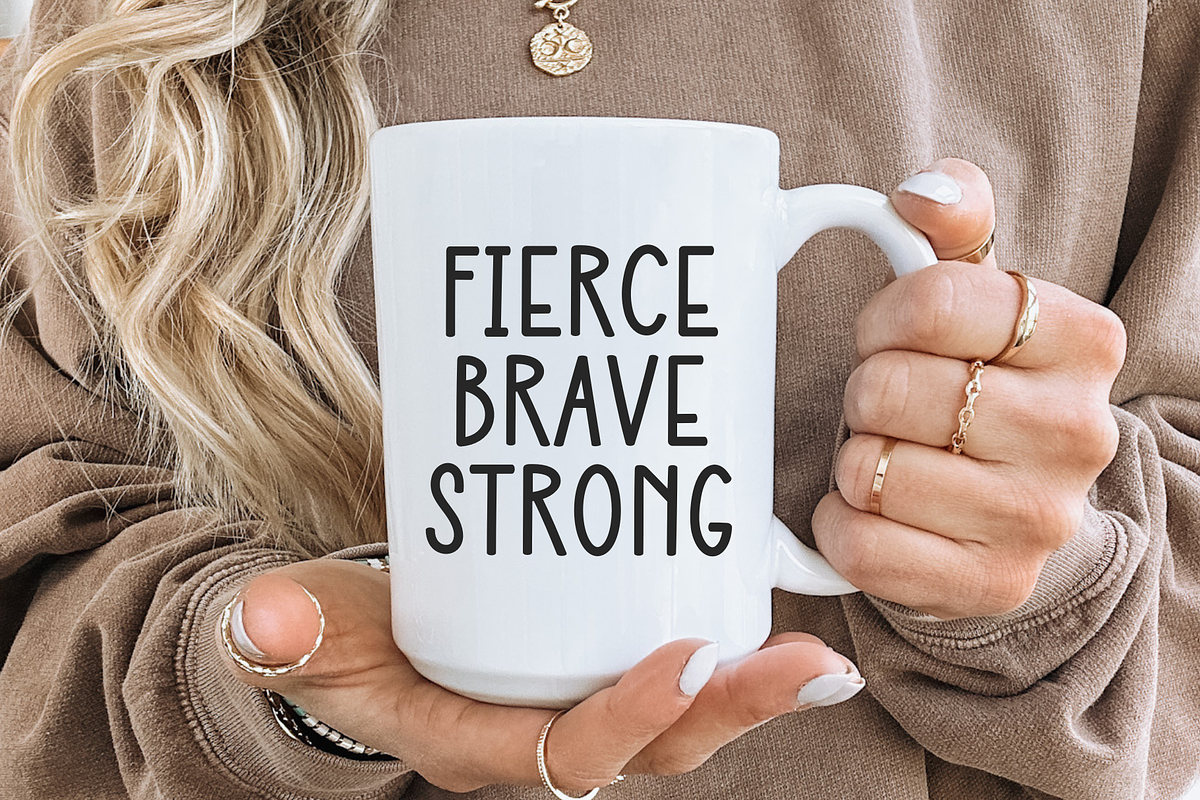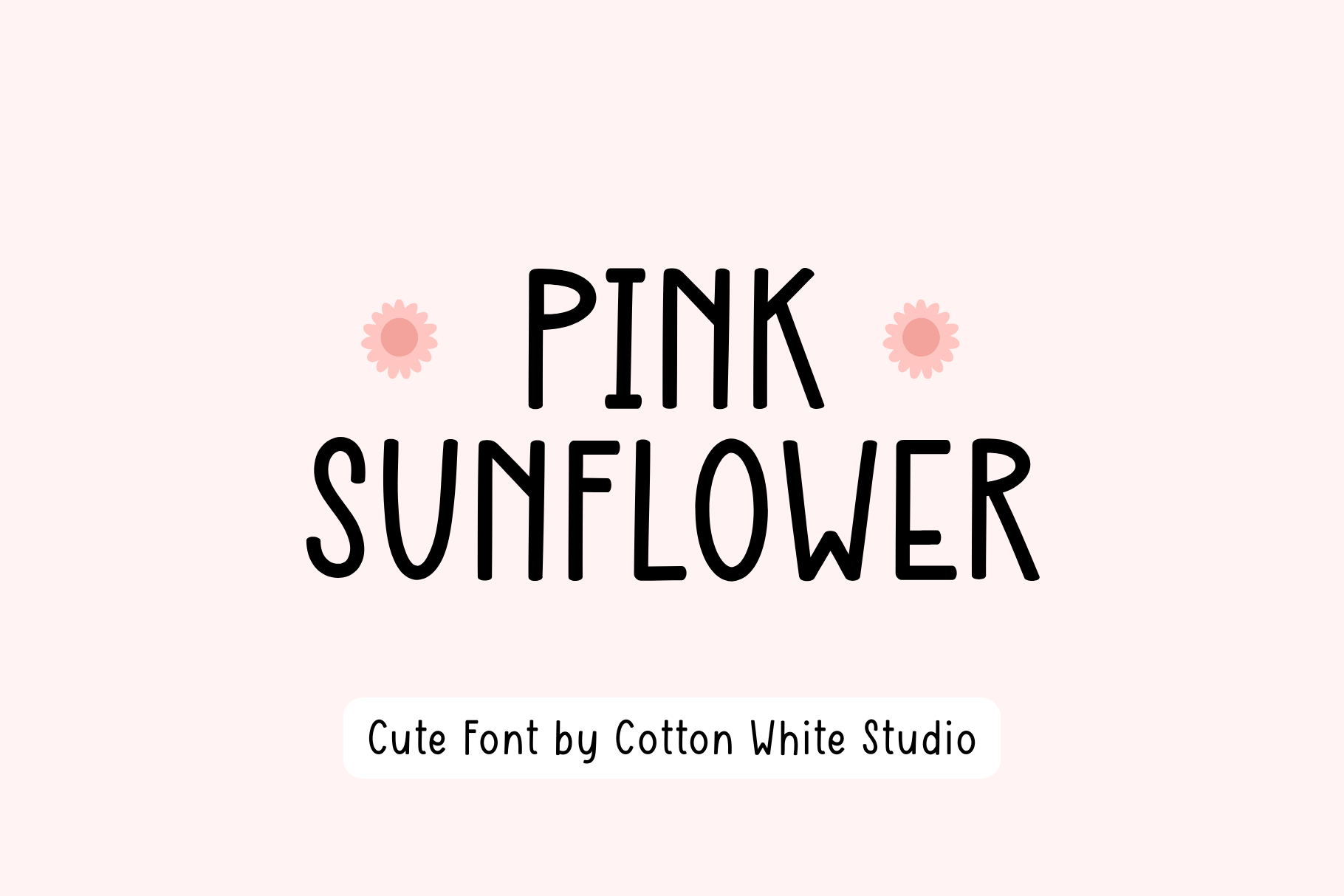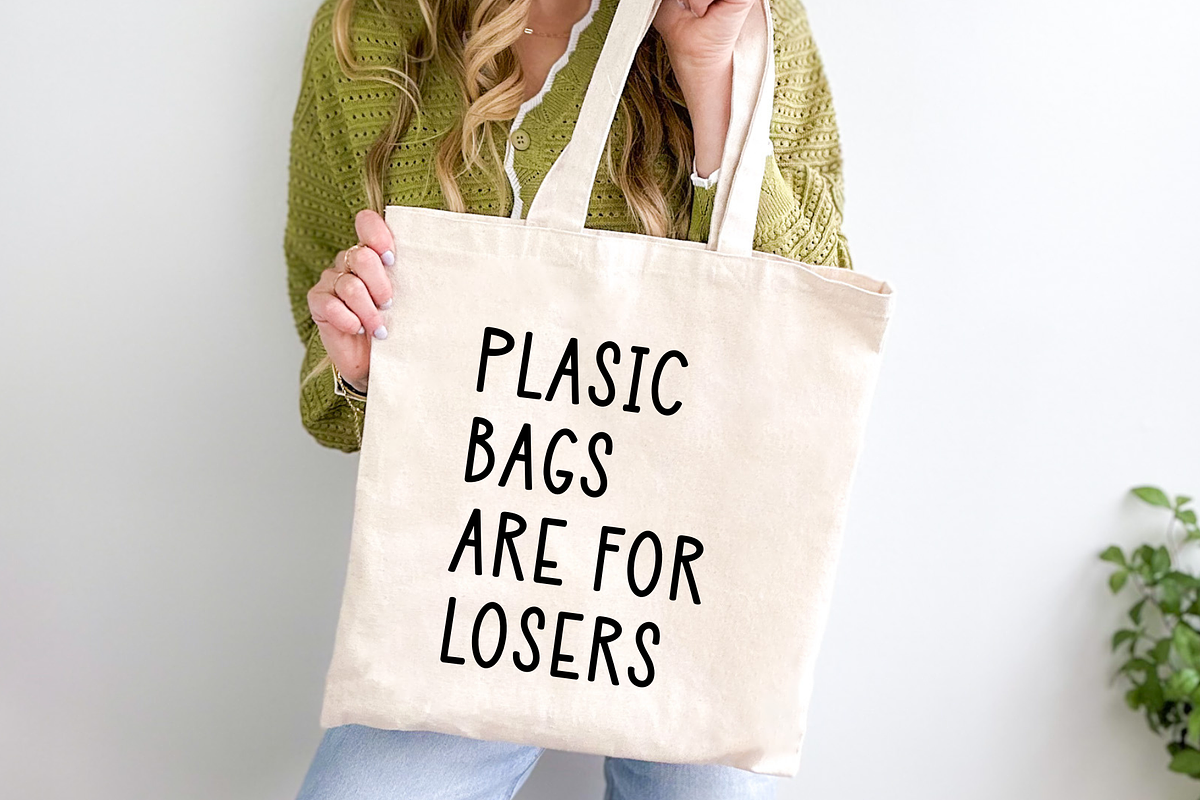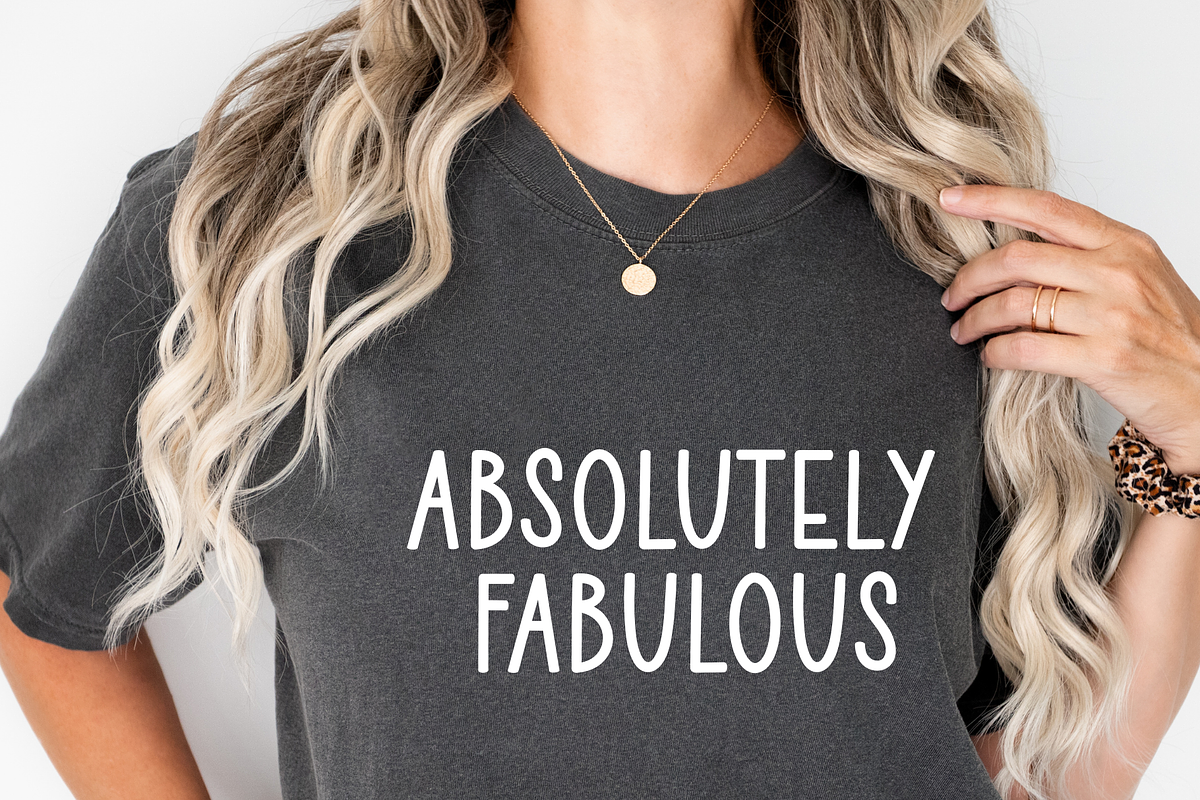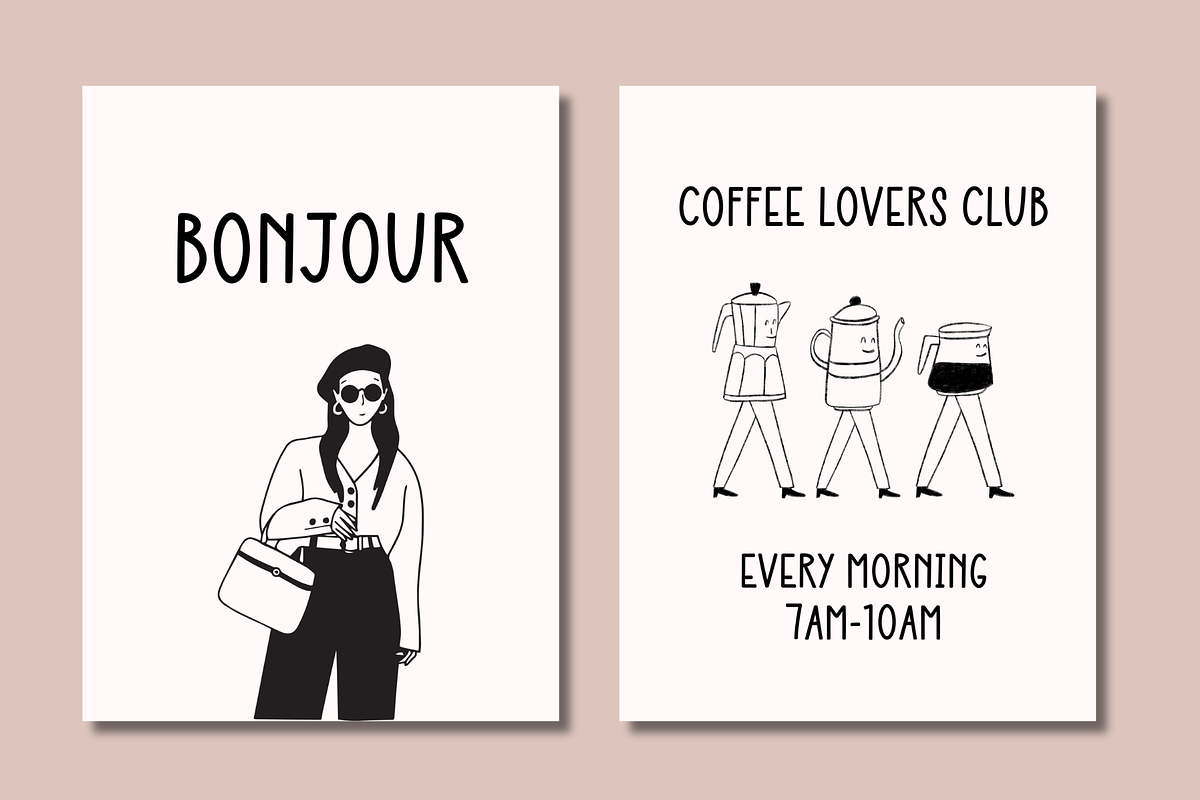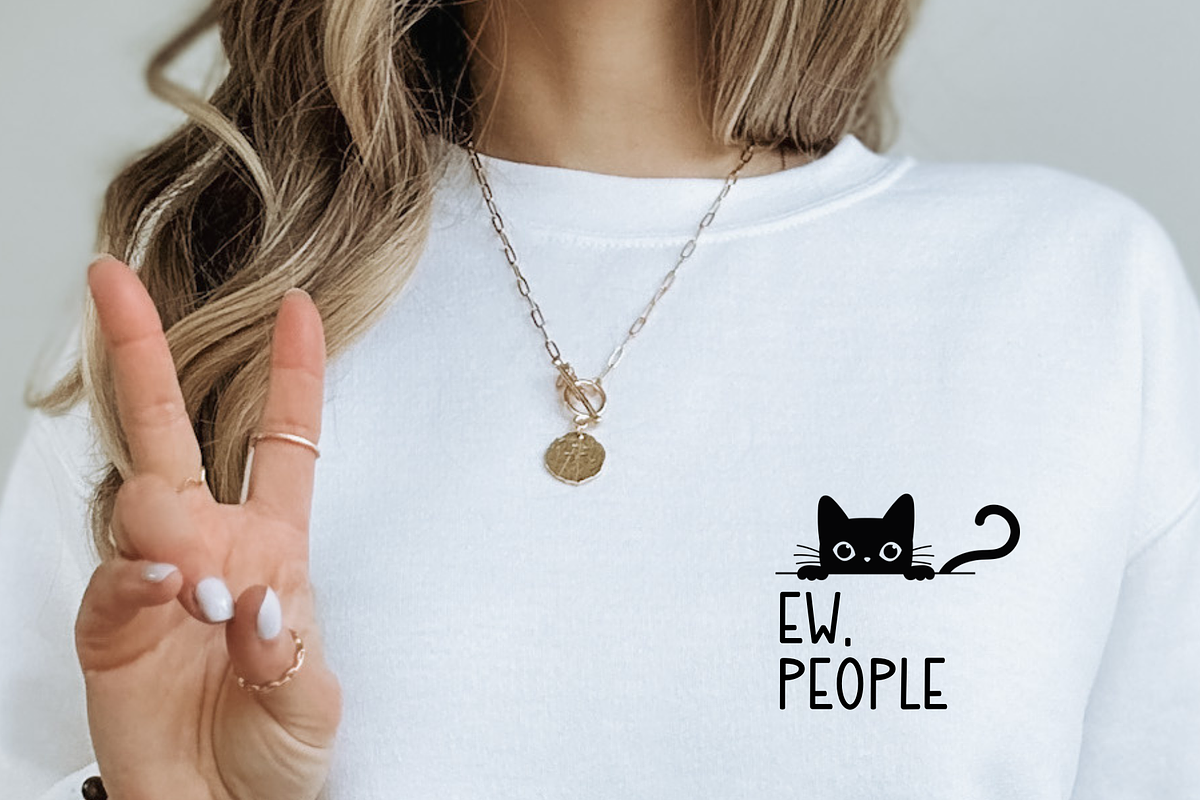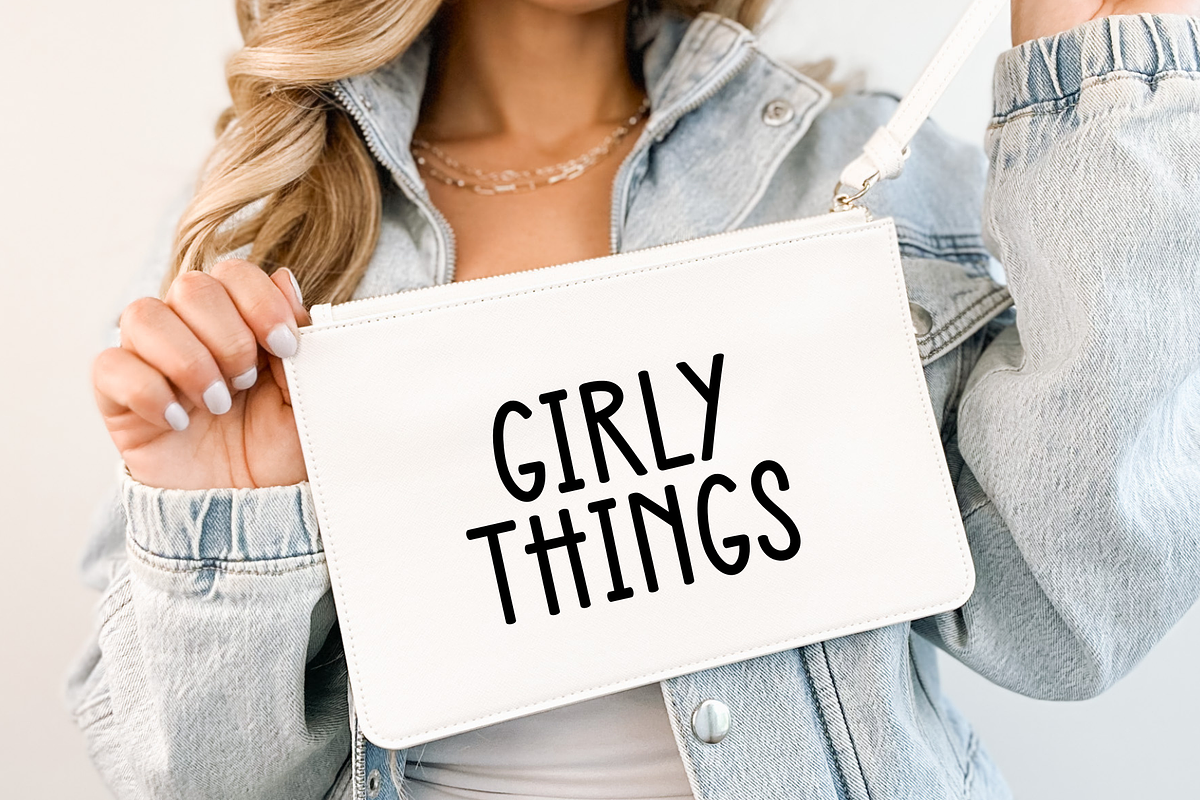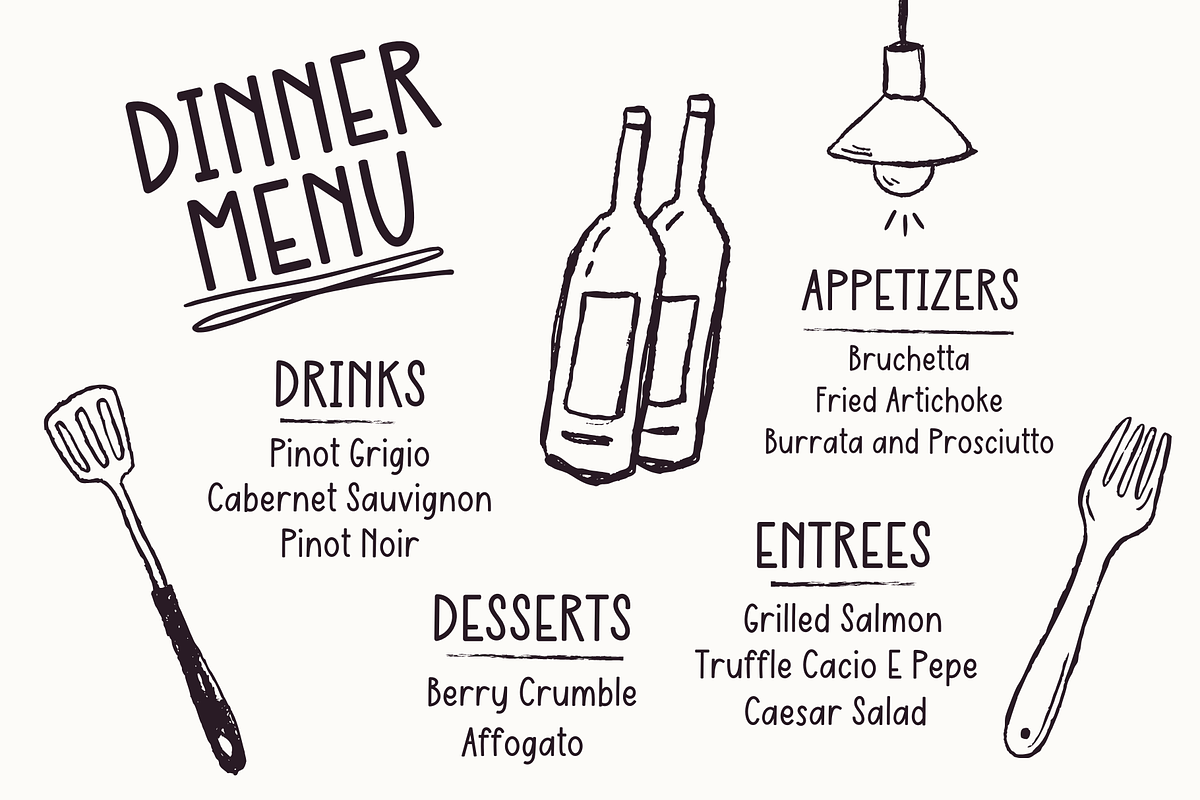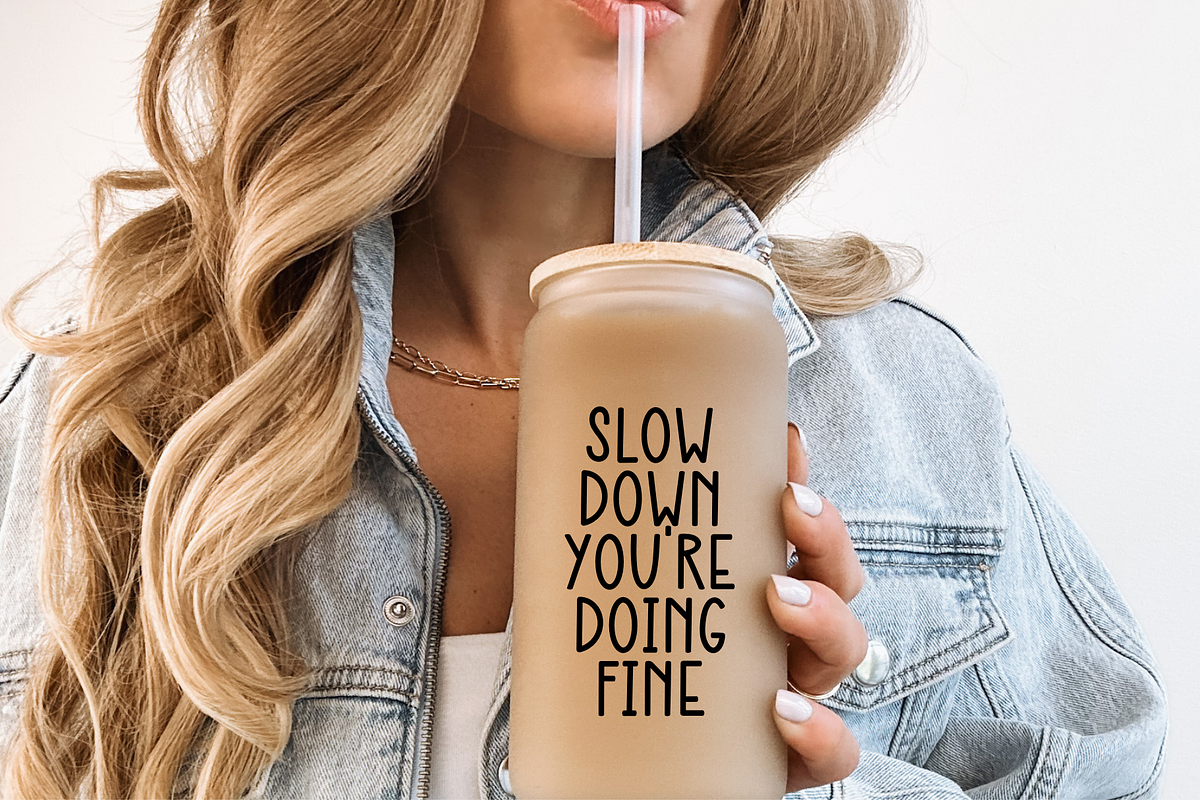
Pink Sunflower Font
Use the Pink Sunflower font to create super cute logos, branding, notebooks, journals, labels, stickers, blogs, quotes, greeting cards, tea towels, apparel, pillows, mugs, toys, posters, baby clothing, picture books and so much more... basically anything that requires a cute and fun look! 😍